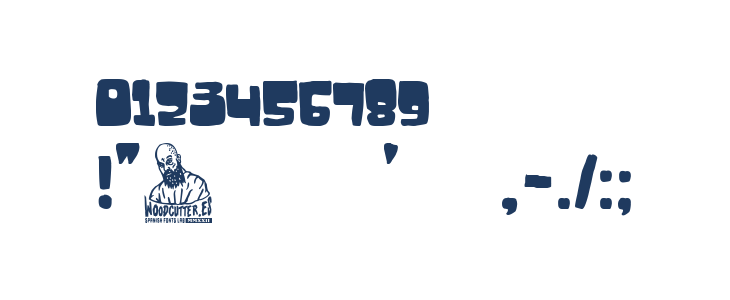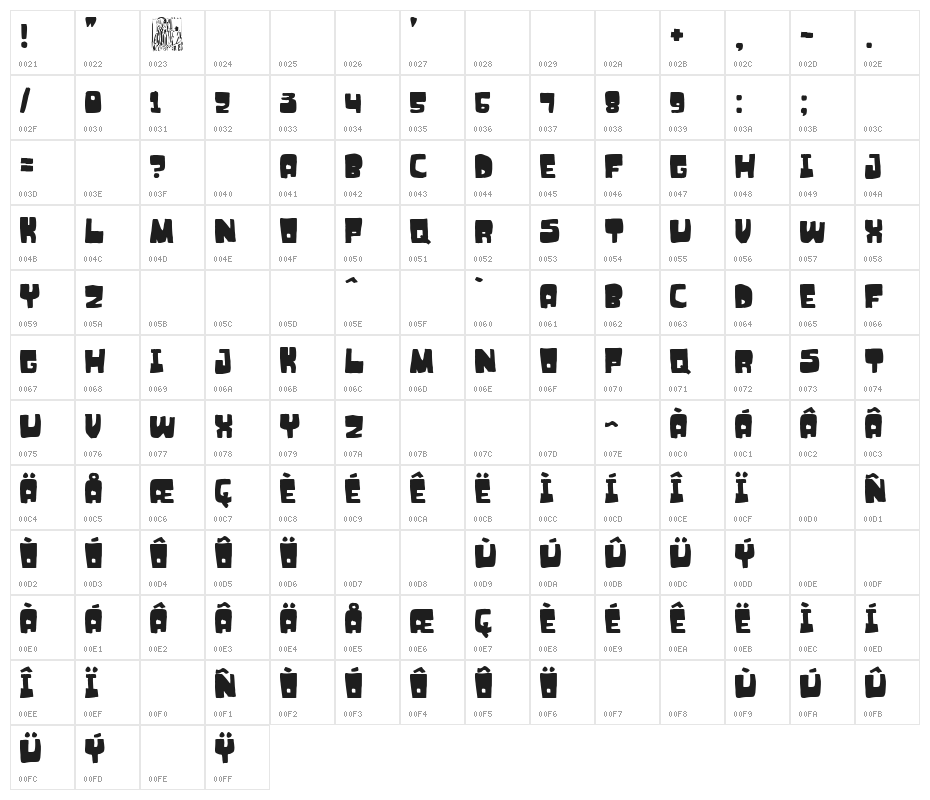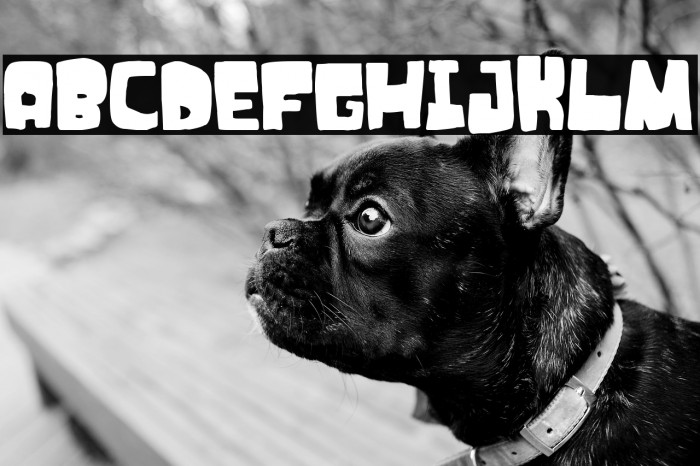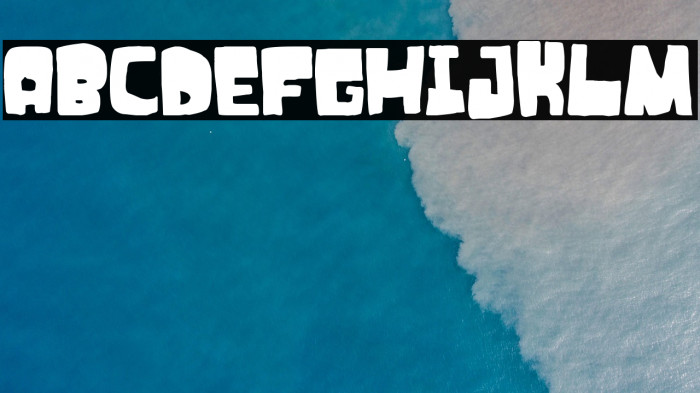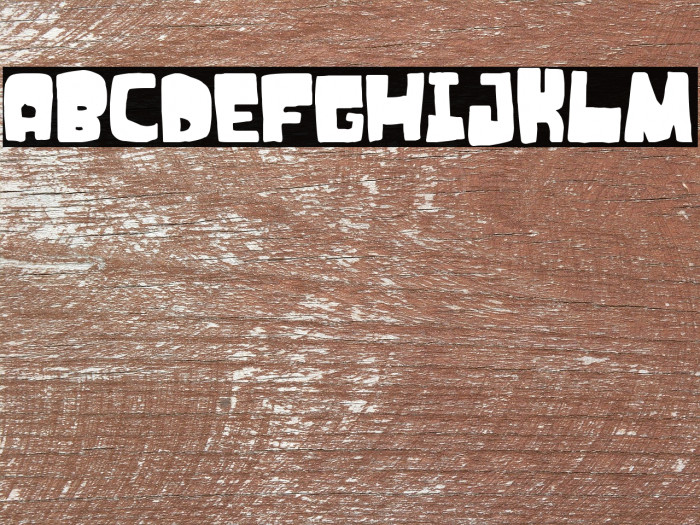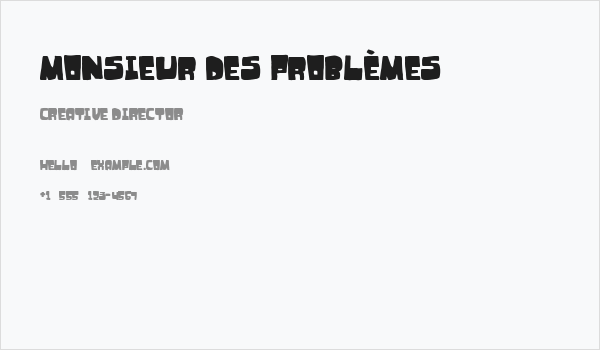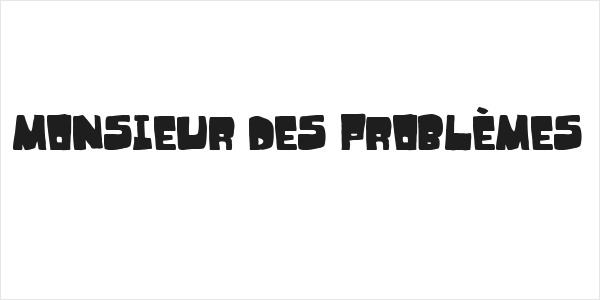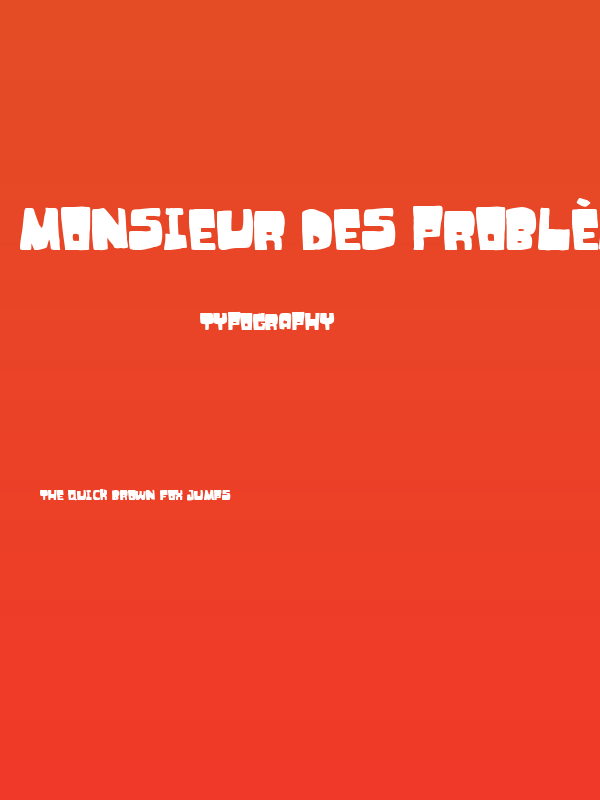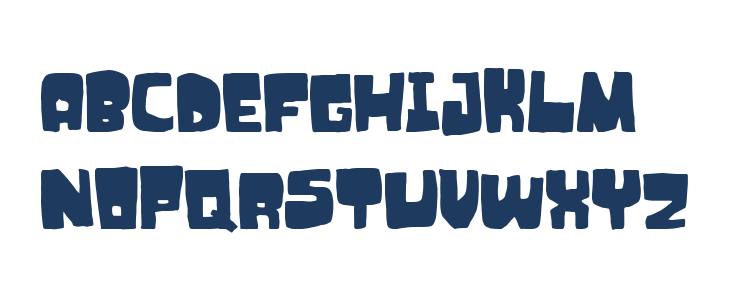
Monsieur des problèmes Font
Monsieur des problèmes Description
This font features a bold and playful design with a hand-drawn aesthetic. The characters are irregular and chunky, giving it a whimsical and informal appearance. The strokes are thick and uneven, adding to its quirky charm. The overall look is reminiscent of graffiti or street art, making it stand out with its unique personality. The uppercase and lowercase letters maintain a consistent style, while the numbers and special characters complement the overall theme. This font is perfect for projects that require a fun and eye-catching typeface.
| Proposed Projects | Ideal for posters, children's books, comic strips, and creative branding projects. |